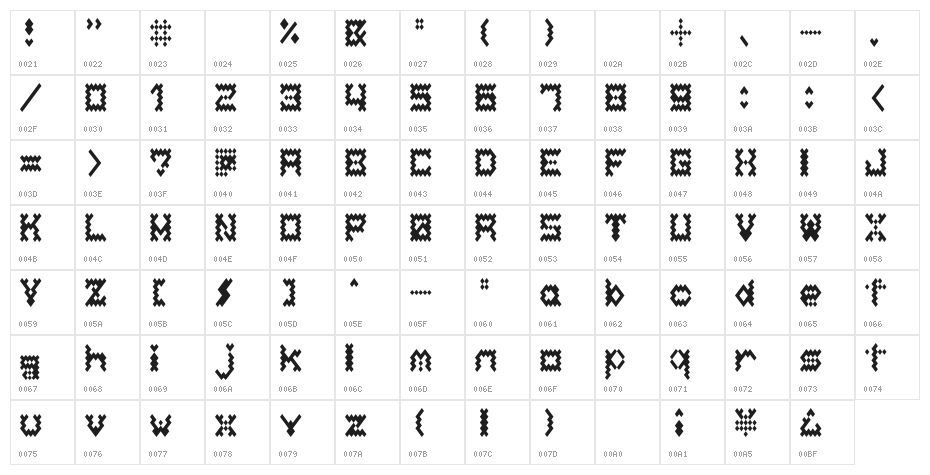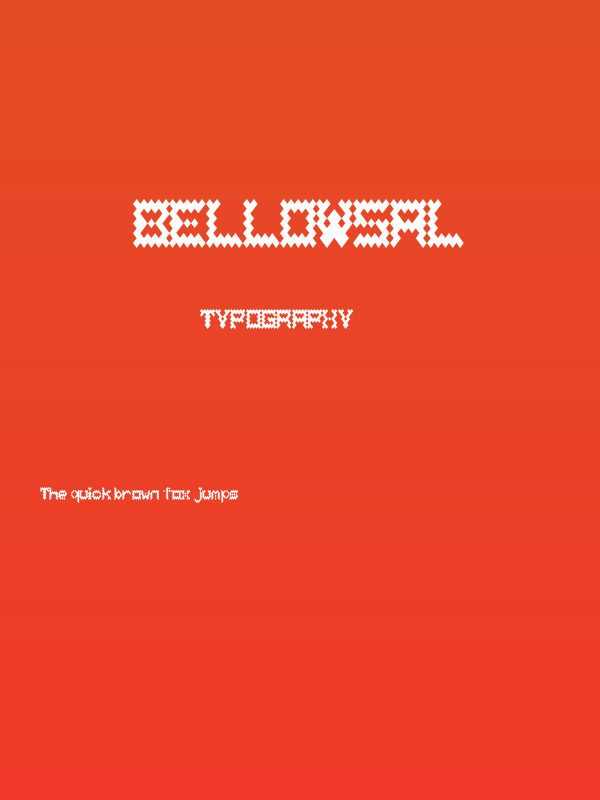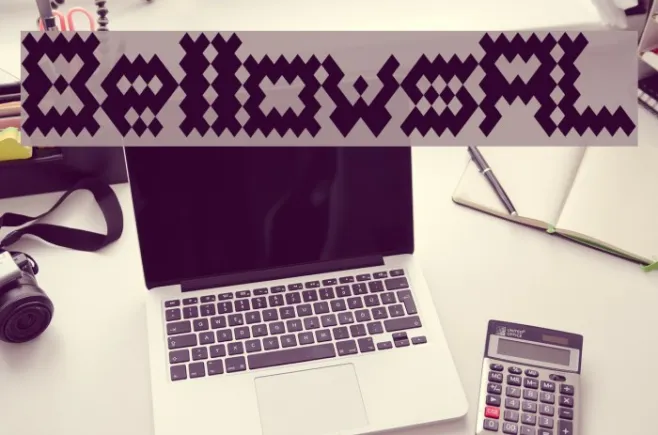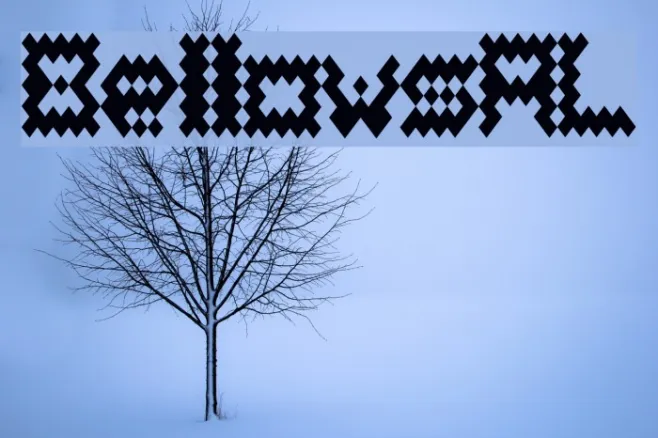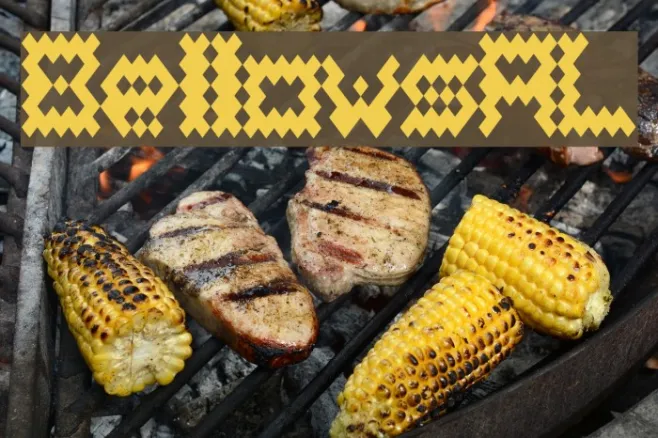
BellowsAL Font
BellowsAL Description
This font features a unique and bold design characterized by its pixelated, zigzag pattern. Each character is composed of sharp, angular lines that create a dynamic and eye-catching effect. The font's geometric style gives it a modern and digital appearance, making it stand out in any design. The uppercase and lowercase letters maintain a consistent style, while the numbers and special characters are equally distinct, ensuring a cohesive look across all text. The font's intricate design is perfect for projects that require a strong visual impact.
| Proposed Projects | This font is perfect for digital art, video game graphics, tech-themed posters, and any project that requires a futuristic or digital aesthetic. |